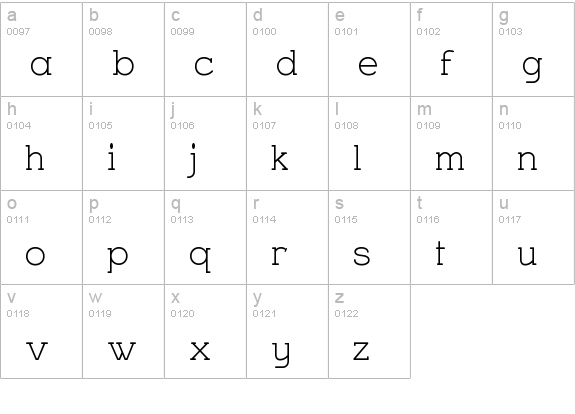
Charrington font is a beautifully crafted typeface that exudes elegance and sophistication. With its classic, timeless look, Charrington font is perfect for adding a touch of refinement to any design project. The clean lines and graceful curves of this font make it both versatile and eye-catching, suitable for a wide range of applications. What sets Charrington font apart is that it is available for free download at FontsMarket.com. This means that you can easily access this exquisite font and use it in your projects without any cost. Whether you are working on a professional presentation, a creative advertisement, or a personal project, Charrington font is sure to elevate your design and leave a lasting impression. Download Charrington font today from FontsMarket.com and experience the beauty and versatility of this stunning typeface for yourself. Let Charrington font be the perfect addition to your design toolkit, bringing a touch of sophistication and style to all your creative endeavors.